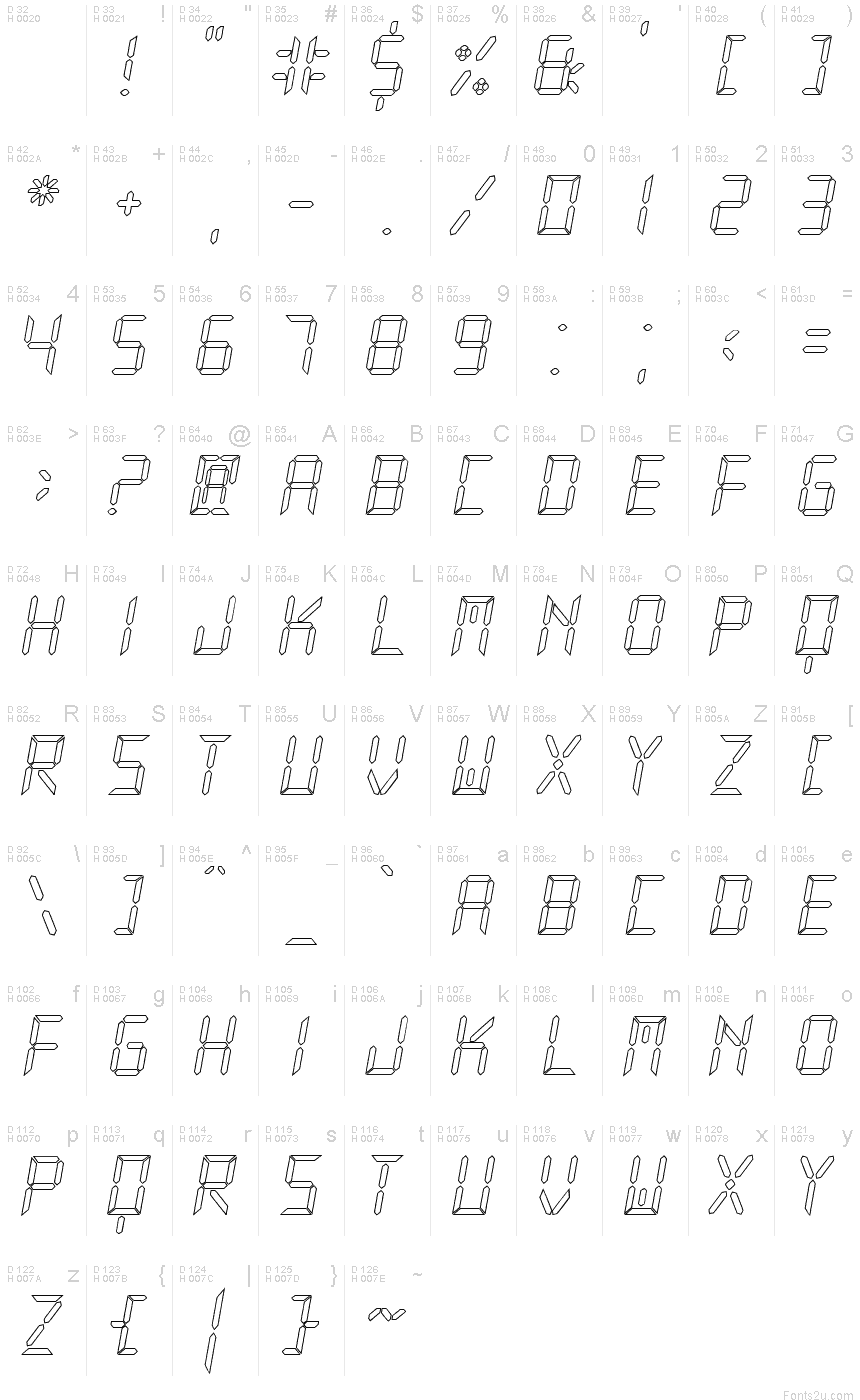
New X Digital TFB Hollow is a free outlined digital display font modeled on segmented electronic readouts, with slim strokes and sharply clipped ends that give each letter a technical, skeletal profile. Its wide, open forms use broken joins and angled cuts throughout, recalling calculator and scoreboard lettering but allowing more expressive shapes than a strict seven-segment system.
Digital graphics are its clearest home, especially score screens and arcade interfaces. The same electronic structure suits science-fiction posters, music event graphics, and technology packaging, where the lettering can become a recognizable part of a product or brand identity across coordinated campaigns.